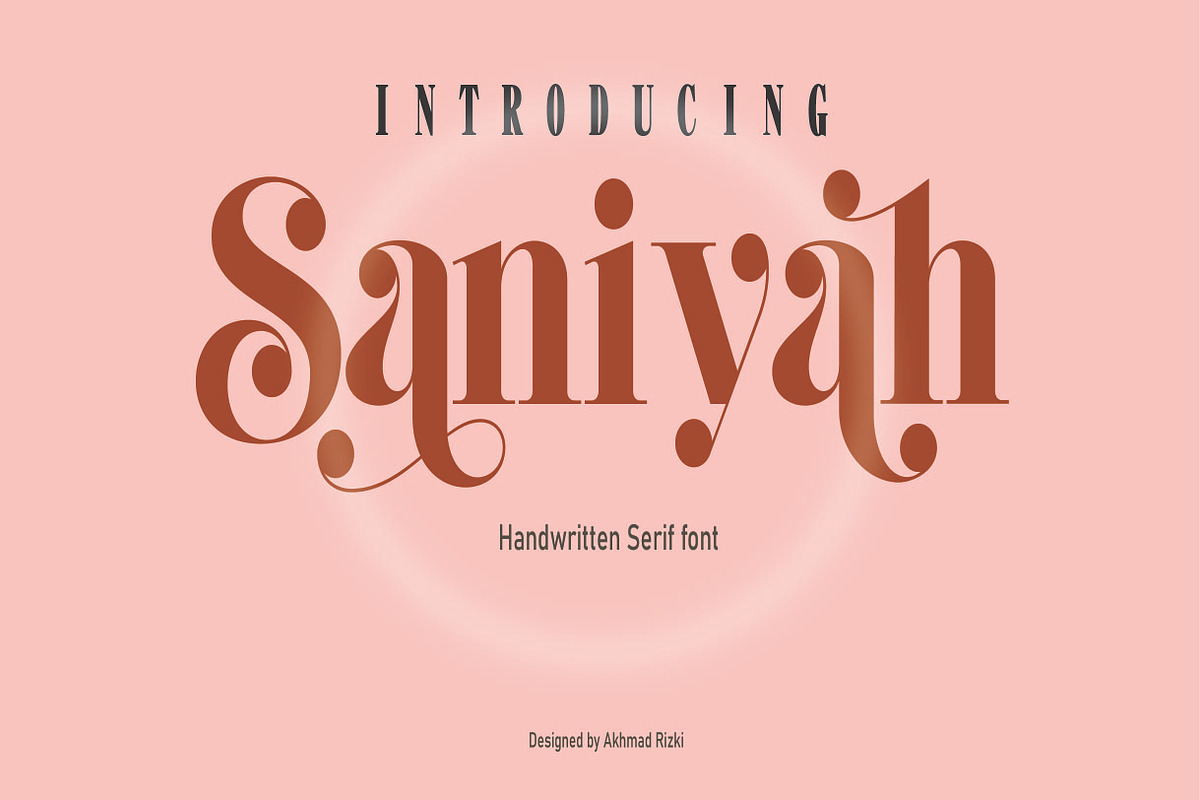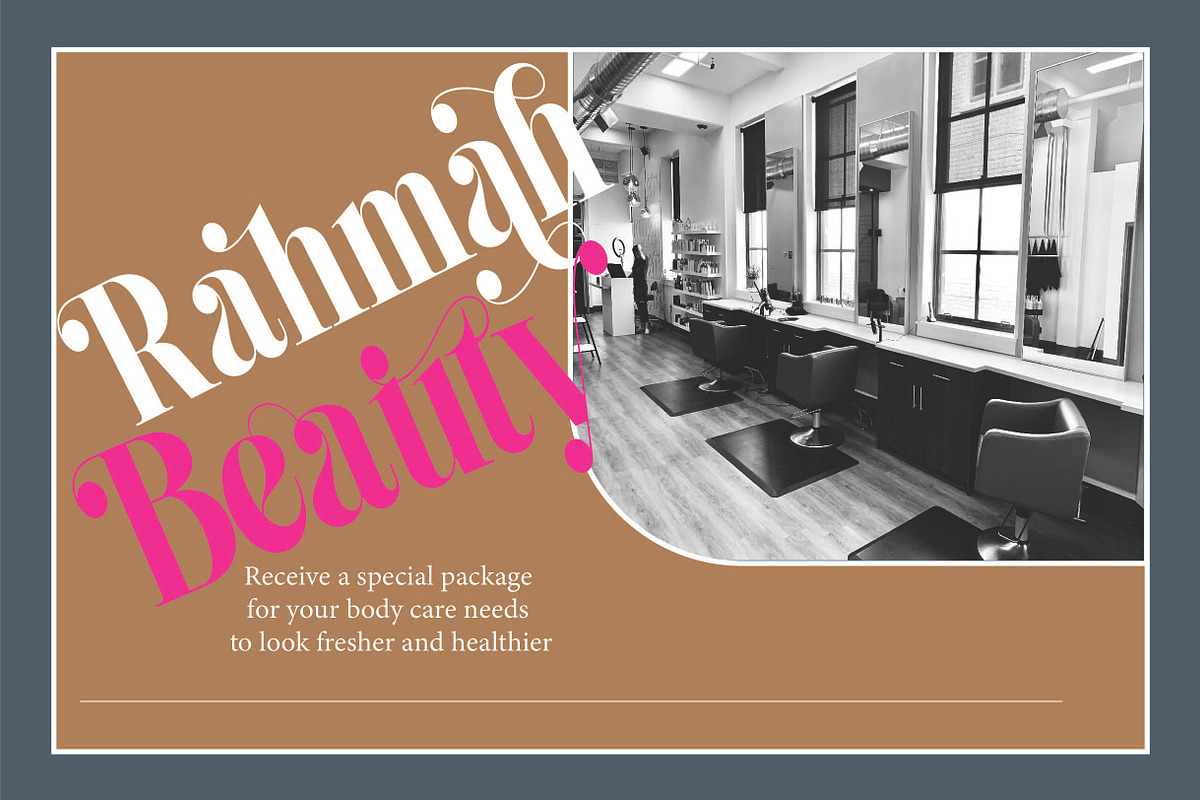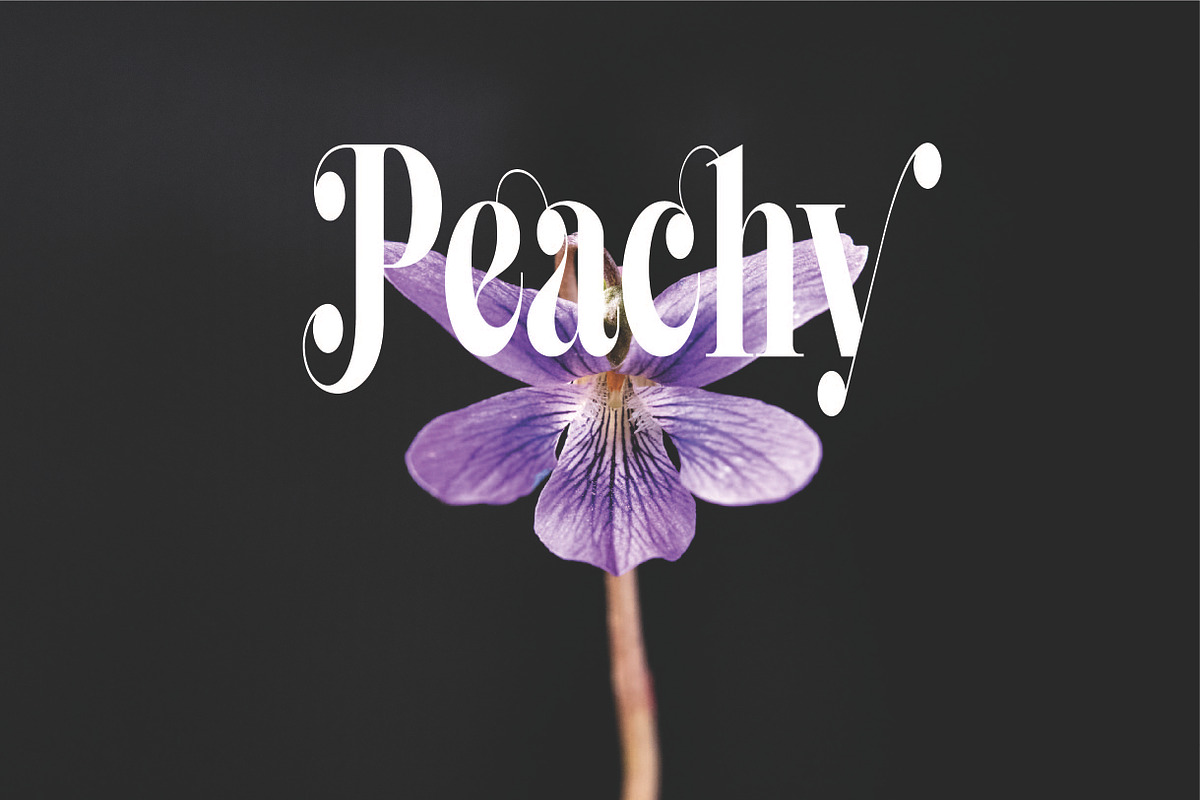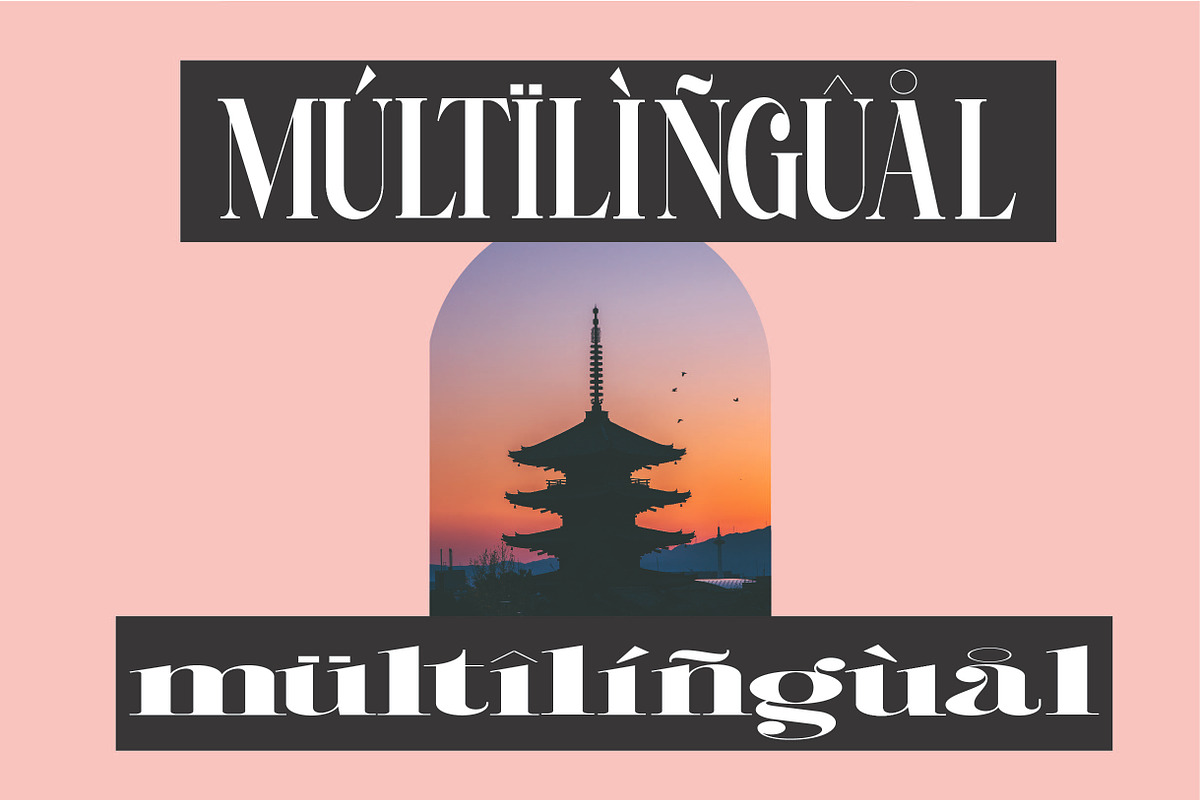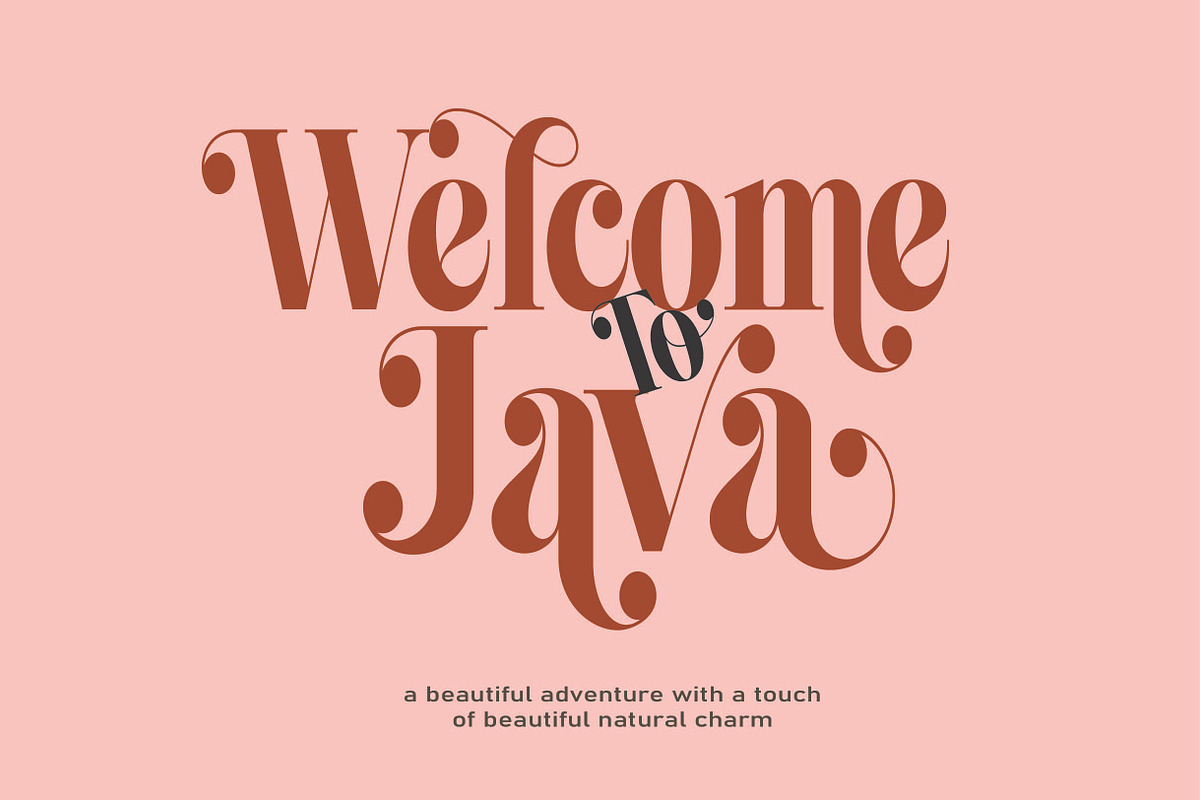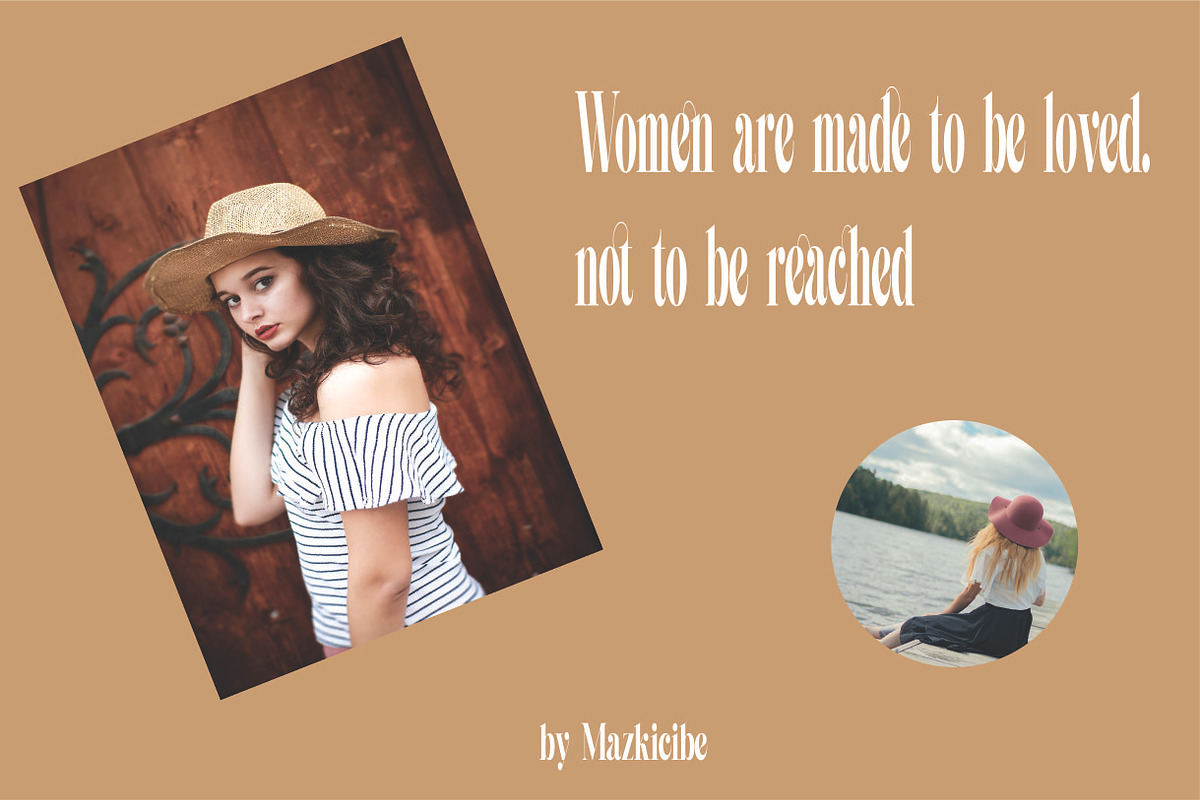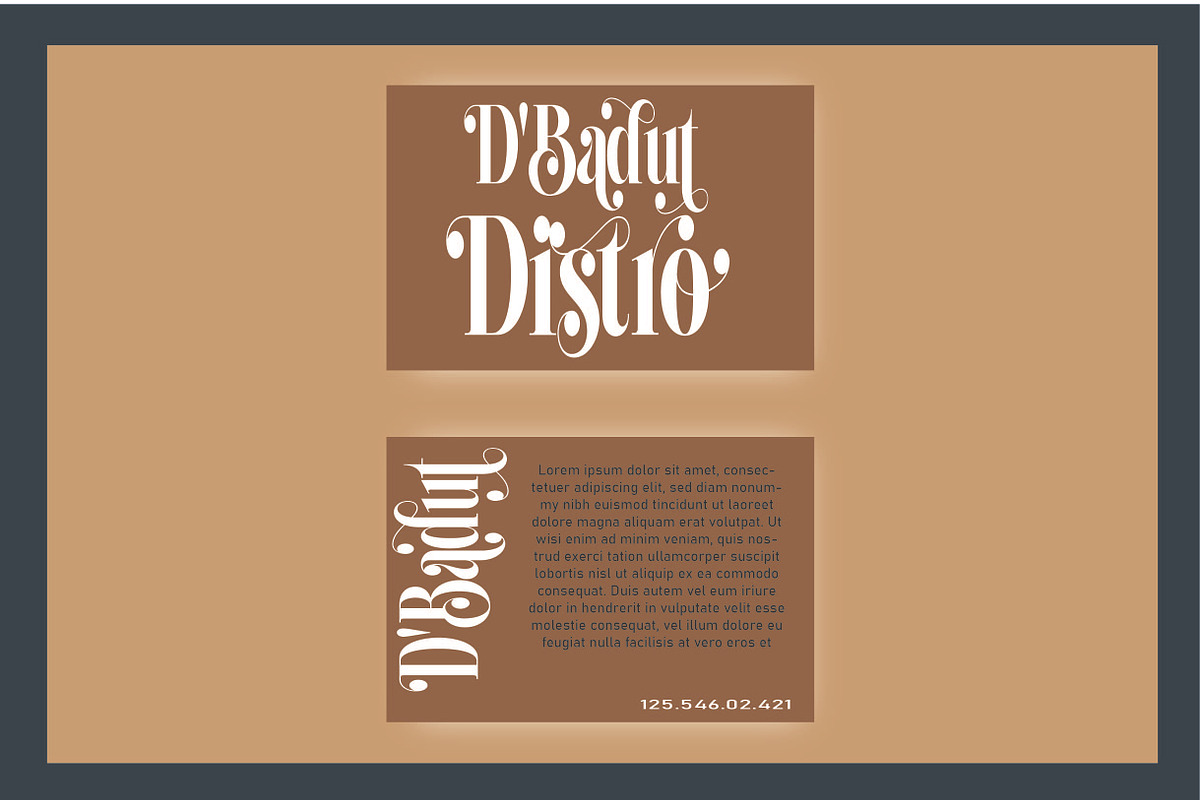
Saniyah
Saniyah Font is Beautyful Sans Serif and modern font combined with a sweet touch and beautifully curved each letter. using a touch of soft curves so that it is pleasing to the eye. Saniyah Font Spirit is great for: Wedding invitations, fashion magazines, logos, signatures, and suitable for watermark photography.